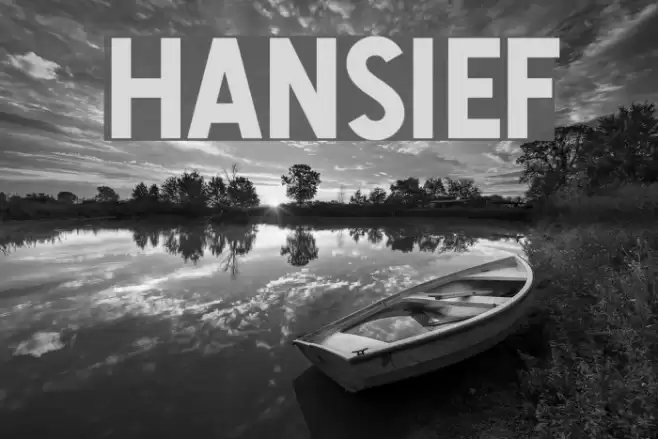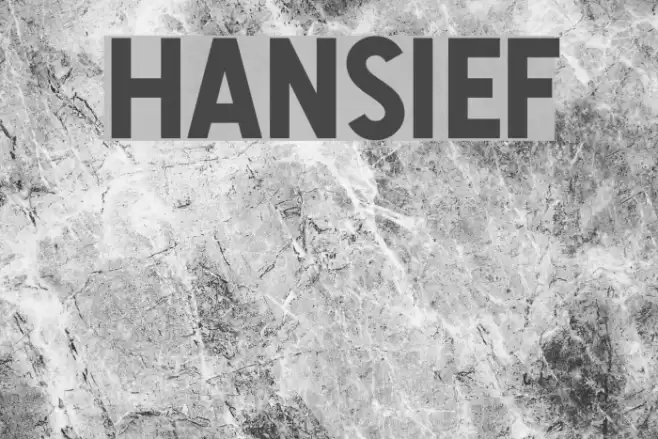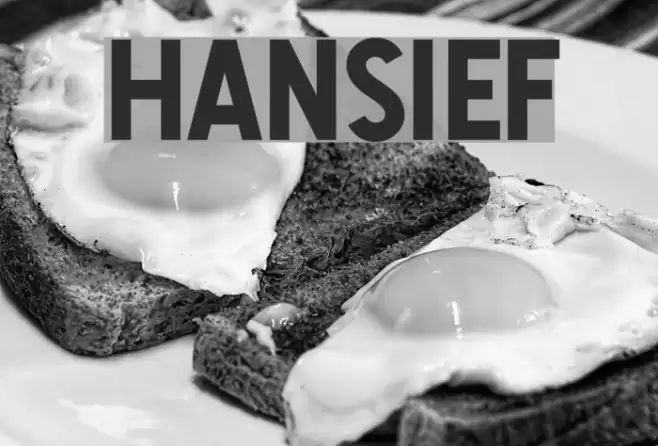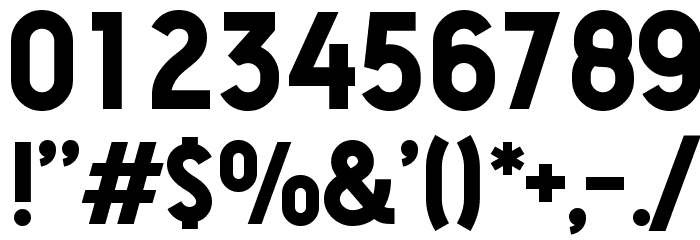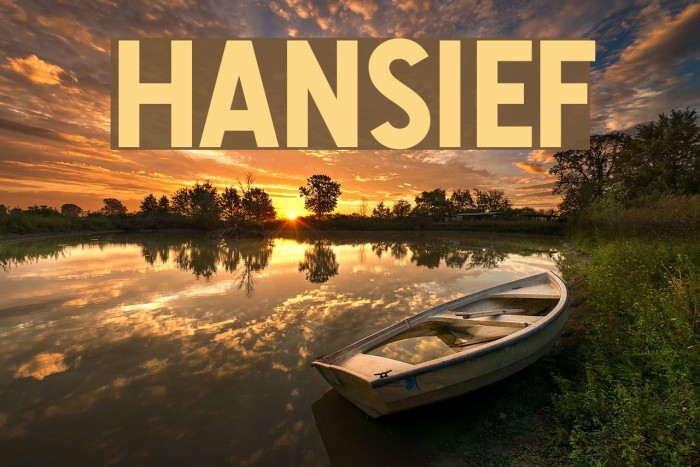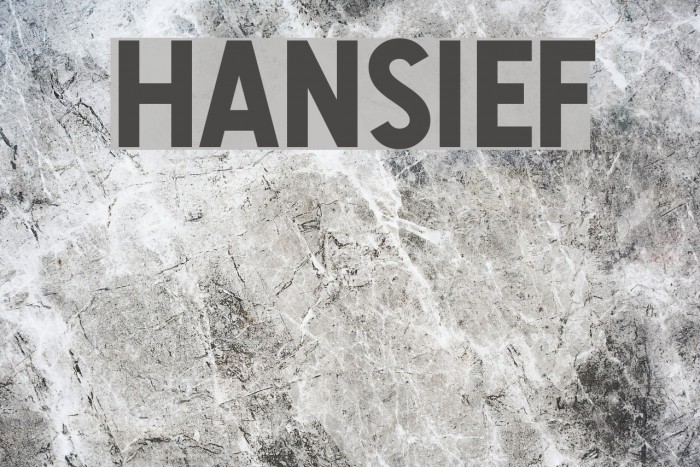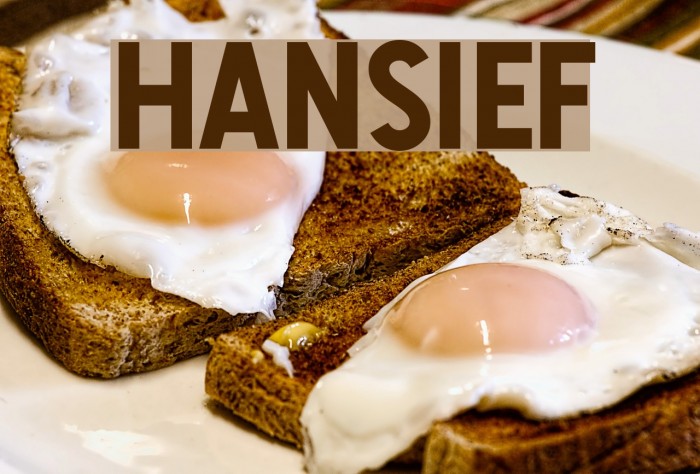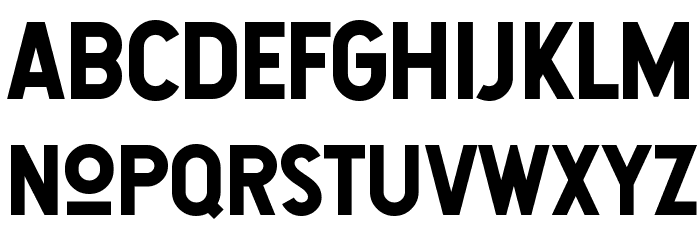
Hansief Font
Hansief Description
This font features a bold and impactful design, characterized by its strong geometric shapes and clean lines. The uppercase letters are uniform in height, creating a cohesive and balanced appearance. The numerals are equally bold, ensuring readability and prominence. The special characters maintain the same weight and style, providing consistency across all glyphs. This font's simplicity and strength make it ideal for making a statement in any design project.
A bold, geometric font with strong lines and uniform height from Uncategorized fonts.
- Proposed Projects: Ideal for branding, headlines, posters, and signage where a strong visual impact is needed.